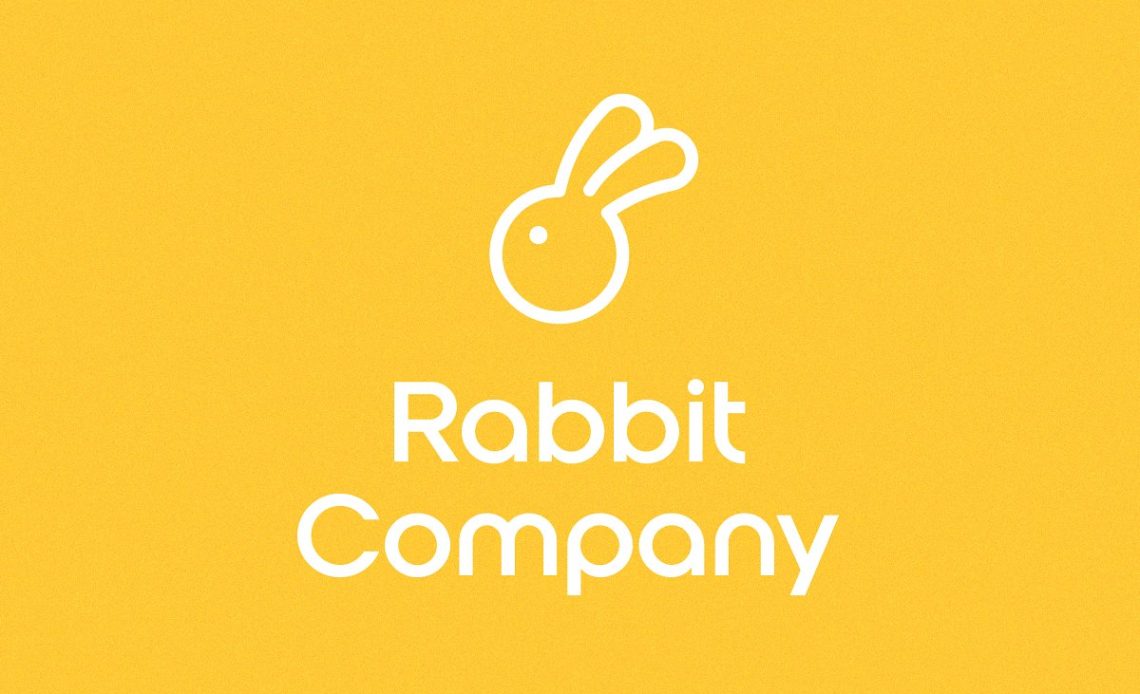
Are you looking for the perfect font to elevate your brand's image and identity? Look no further than Roie Logo Font, the best font style for brand names. Created by the talented designers at Shina Design, Roie is a sans-serif font family that is perfect for creating captivating and memorable logos and branding materials.
With every character carefully crafted for a good logo, Roie is not suitable for long text but is the ideal choice for any business looking to make a lasting impression. Whether you're a startup or an established brand, Roie can help you create a quality logo that truly represents your company's values and vision.
Roie Logo Font comes with a desktop license, making it easy to create and use your logo across various platforms. The character set includes A-Z, 0-9, 54 punctuation marks, and 199 Latin diacritics, which makes it suitable for more than 66 languages. This means you can use Roie to create logos and branding materials for your global audience, without worrying about any language barriers.
Roie's concept is basic, clean, next, positive, and simple, making it perfect for any brand that wants to create a sleek and modern image. Additionally, Roie pairs beautifully with Poppins for text, creating a consistent and cohesive brand identity across all materials.